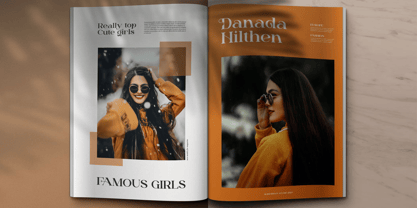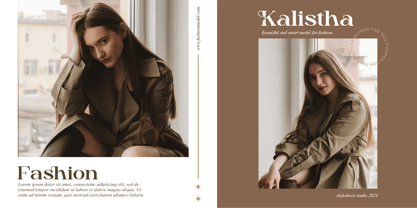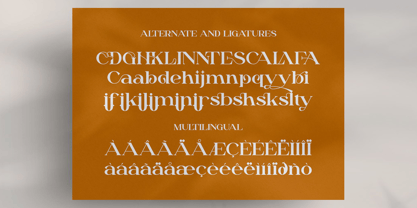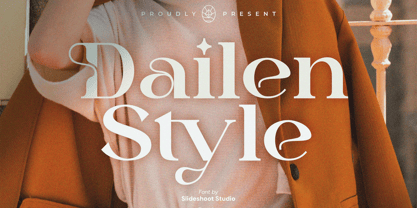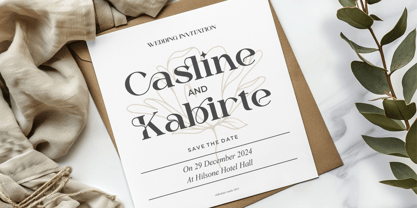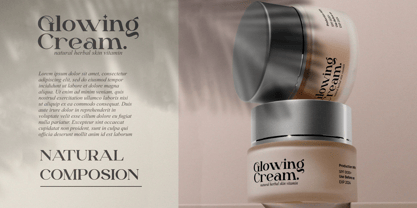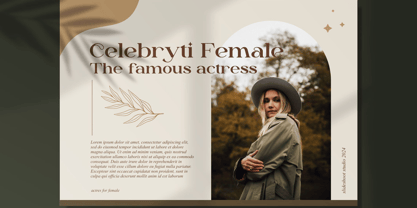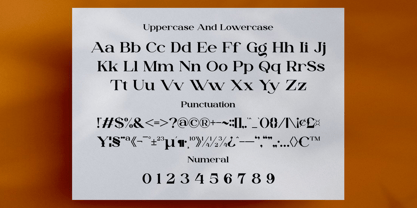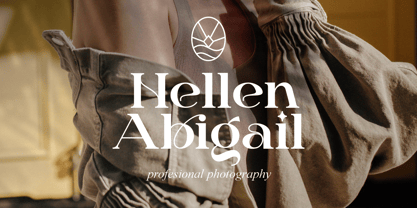
Dailen
by Slide Shoot
The Dailen Font Family was designed by Ahmad Riqi and published by Slide Shoot. Dailen contains 1 styles. More about this family
Dailen Style Serif is an elegant and classy font type for all branding and logo designs. This modern and classy Serif font has a beautiful character. This font is suitable for invitation card designs, cool logos, movie titles, movie names, business cards, book titles, brand names, and various other designs. Dailen Style Serif is a smooth serif font that exudes sophistication and the moment. Its stylish alternations and ligatures make this font a perfect partner for any project.
Designers: Ahmad Riqi
Foundry: Slide Shoot